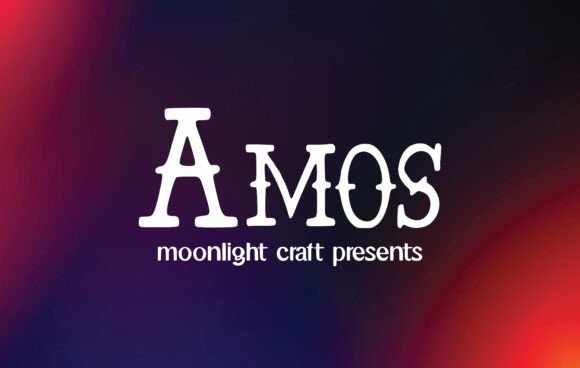
Amos: A Slab Serif Font That Elevates Design and Branding
In the world of typography, a font is more than just a tool for displaying text—it’s a visual element that communicates tone, personality, and professionalism. Amos stands out in this space as a lovely and beautiful slab serif font, combining classic elegance with modern versatility. Designed to bring clarity and impact to any creative project, Amos has become a go-to choice for designers, entrepreneurs, and branding professionals who want their work to stand out.
What Makes Amos Unique?
Slab serif fonts are known for their bold, block-like serifs that add weight and character to the design. Amos takes this aesthetic and refines it, offering clean lines, balanced proportions, and an overall sense of sophistication. Whether you’re crafting a logo, designing a poster, or creating compelling quotes for social media, Amos provides the right amount of structure and flair without overwhelming the message.
The beauty of Amos lies in its adaptability. It reads well at both large and small sizes, making it suitable for a wide range of applications—from print materials like business cards and packaging to digital assets such as websites and mobile interfaces. Its timeless appeal ensures it won’t feel outdated, while its contemporary edge makes it perfect for today’s fast-evolving design trends.
Why Amos Is Relevant in Modern Design
As businesses and creators increasingly focus on building strong visual identities, the demand for high-quality, distinctive fonts has grown. Typography is no longer just about legibility; it's about storytelling and emotional connection. Fonts like Amos play a crucial role in this shift by allowing brands to express their values through every letter they display.
With the rise of minimalist and maximalist design styles alike, there’s a growing appreciation for fonts that can balance boldness with readability. Amos fits seamlessly into both paradigms—its sturdy build gives it presence in maximalist layouts, while its elegant curves ensure it remains approachable and easy to read in more subdued compositions.
Amos in Branding and Logo Design
One of the most impactful uses of Amos is in branding and logo creation. A logo is often the first point of contact between a brand and its audience, and choosing the right font can make all the difference. Amos brings a sense of authority and warmth, two qualities that many successful brands strive to embody.
- Professionalism: The structured nature of Amos conveys trust and reliability, which is essential for corporate logos and marketing collateral.
- Approachability: Unlike some heavy slab serifs, Amos maintains a friendly and open feel due to its soft edges and generous spacing.
- Versatility: With multiple weights and style variations, Amos can be used across different platforms and mediums, from billboards to brochures.
For example, a local coffee shop might use Amos in a warm, earthy color palette to create a welcoming and artisanal brand identity. Meanwhile, a tech startup could pair Amos with a sleek, modern layout to communicate innovation with a touch of tradition.
Creating Eye-Catching Quotes and Social Media Content
Social media and content marketing have made the visual presentation of text more important than ever. Captions, headlines, and quote graphics need to grab attention quickly and leave a lasting impression. Amos excels in these scenarios because it strikes the perfect balance between formality and creativity.
Its slab serifs give each letter a solid foundation, making it ideal for bold statements and motivational quotes. The font’s beauty shines especially when paired with subtle gradients, soft shadows, or minimalist backgrounds. These features allow marketers and bloggers to produce visually engaging content that resonates with audiences across platforms like Instagram, Pinterest, and LinkedIn.
- Use Amos for quote-based posts to enhance readability and visual appeal.
- Incorporate the font into infographics where short, impactful text is needed.
- Pair Amos with complementary sans-serif fonts to maintain contrast and hierarchy in multi-layered designs.
Amos in Changing Creative Practices
Design trends are constantly evolving, but certain principles remain timeless—like the importance of good typography. In recent years, we’ve seen a resurgence of interest in slab serif fonts, driven by their ability to convey strength and simplicity in equal measure. This trend aligns perfectly with the characteristics of Amos, positioning it as a forward-thinking choice for those who value both aesthetics and functionality.
Moreover, the rise of remote work and digital collaboration has shifted how creatives present their ideas. From virtual presentations to online portfolios, having a font that looks great across devices and screen sizes is essential. Amos has been optimized for cross-platform consistency, ensuring that your designs maintain their integrity whether viewed on a smartphone, tablet, or desktop monitor.
Typography is a critical component of any design project, and choosing the right font can set the tone for everything else. Amos offers a unique combination of beauty, clarity, and adaptability, making it one of the most practical and inspiring options available today. So next time you’re searching for a font that can truly take your creative ideas to the highest level, remember that Amos is waiting to bring your vision to life.